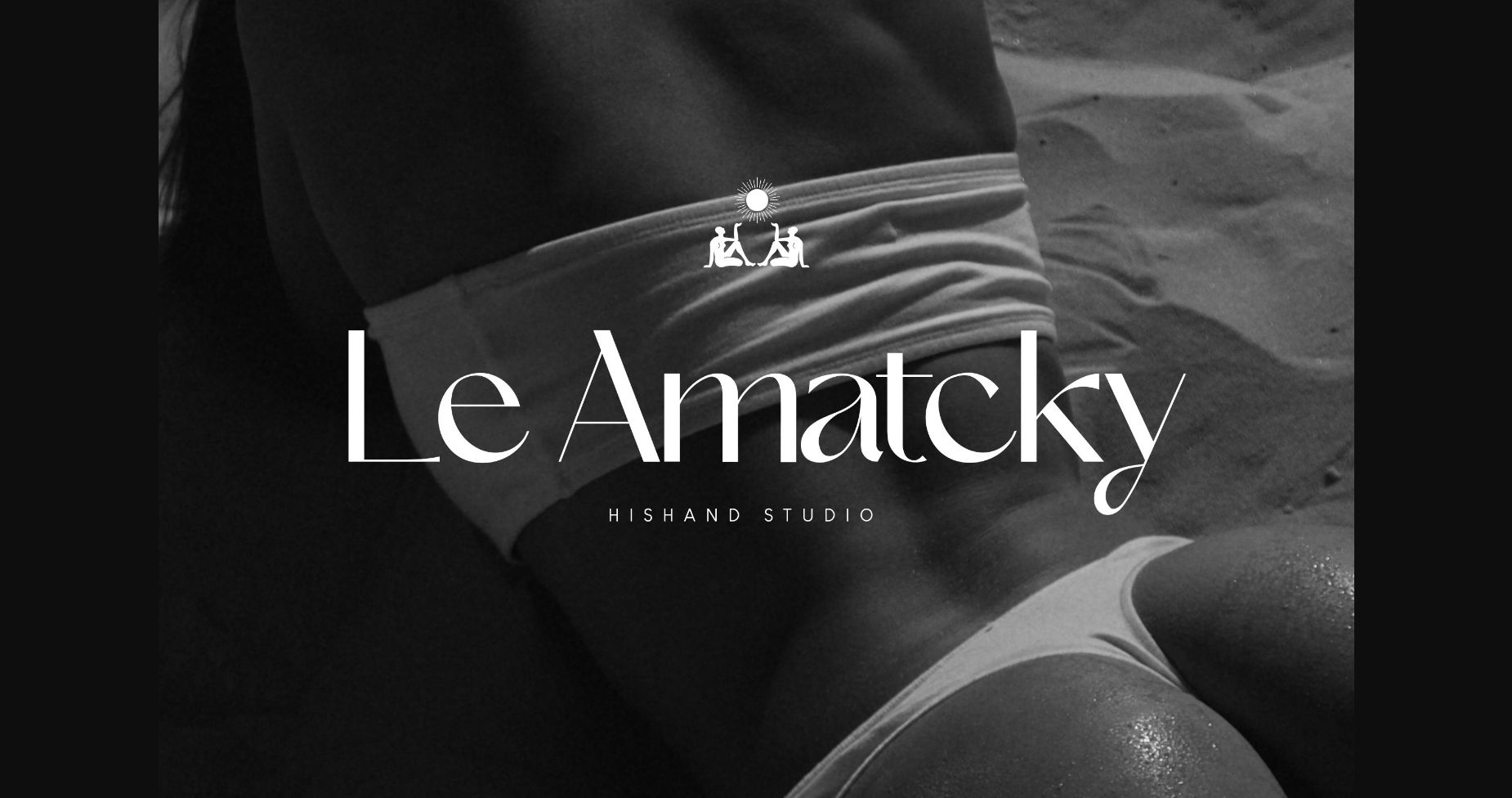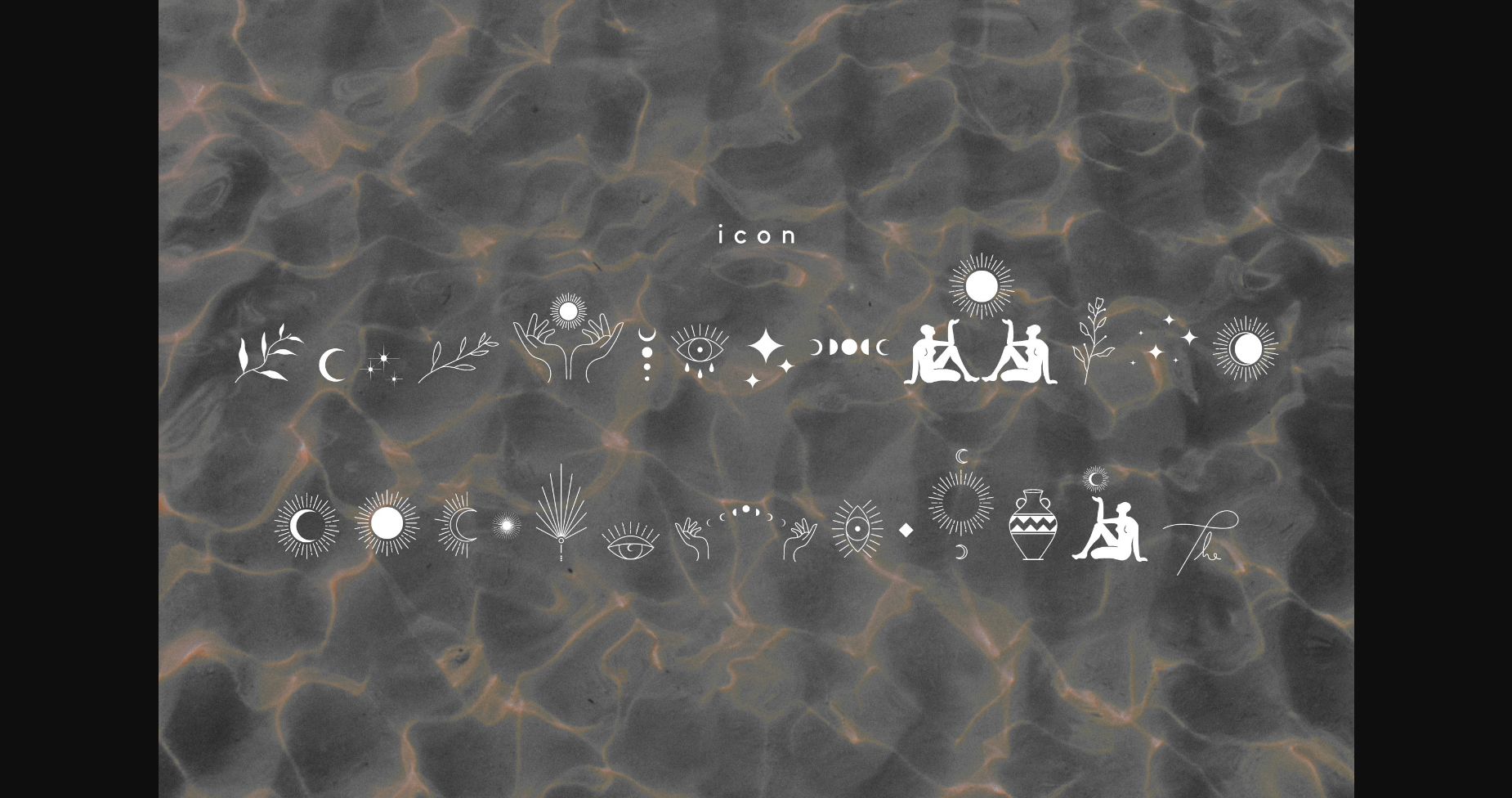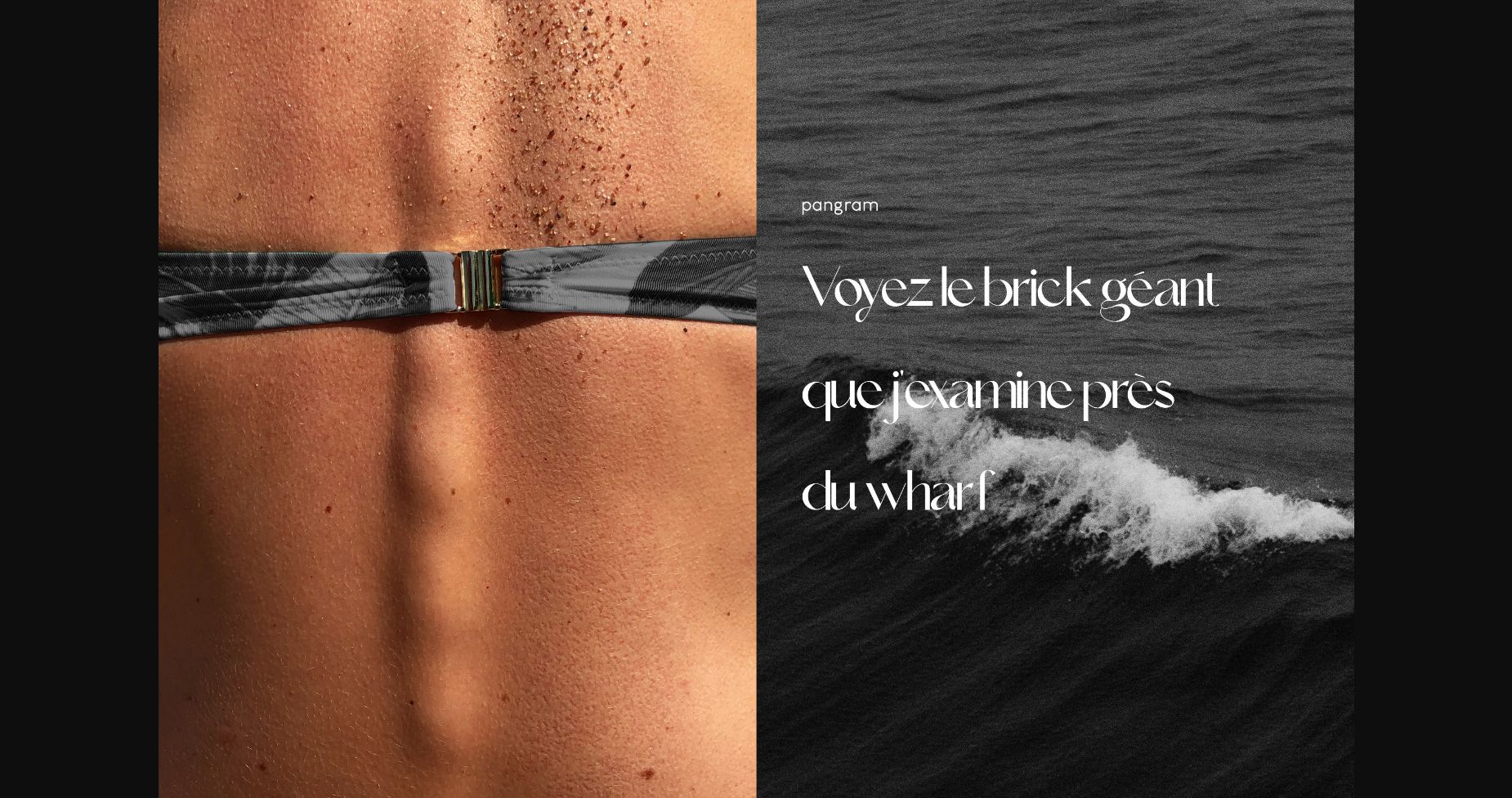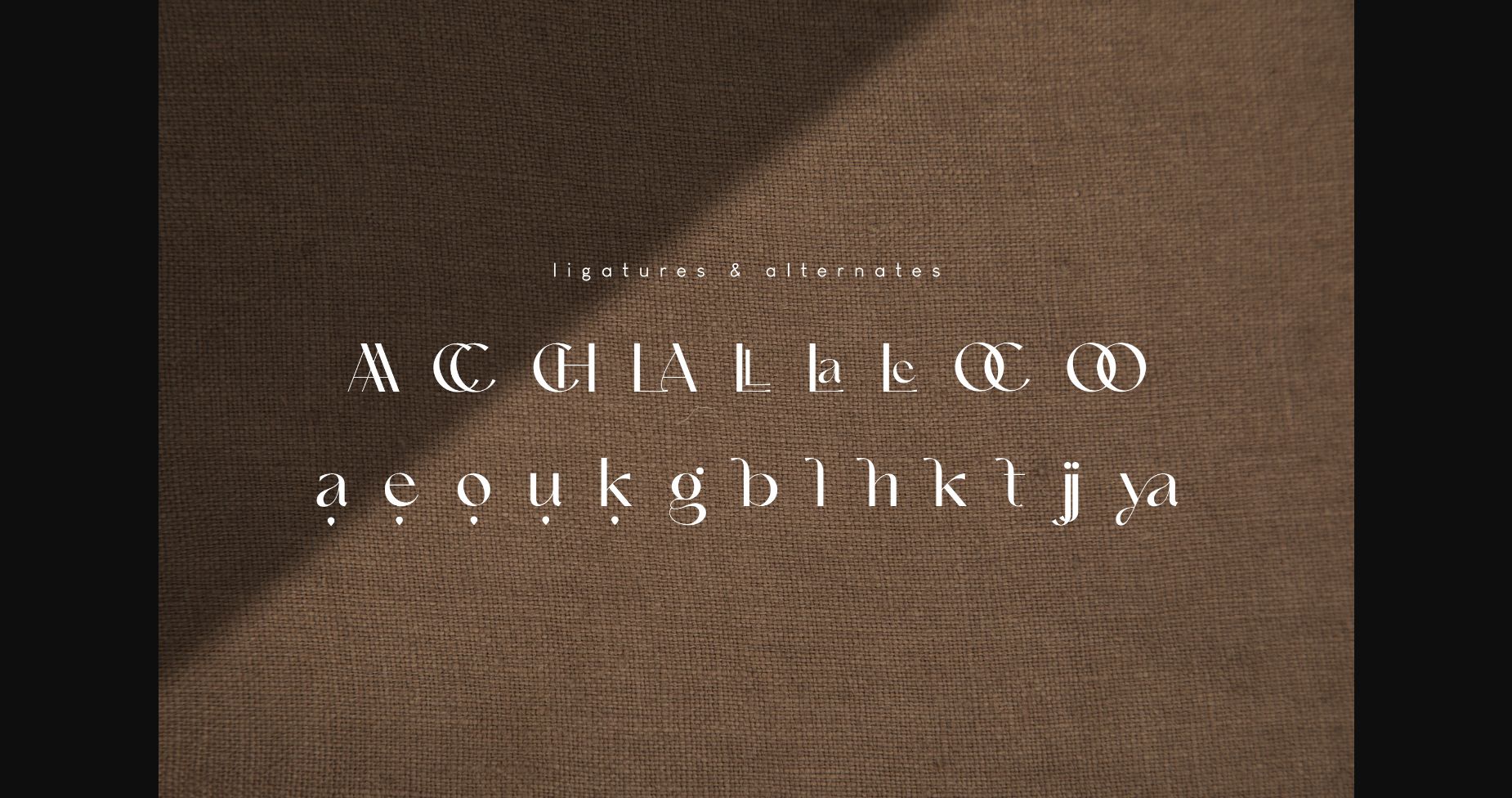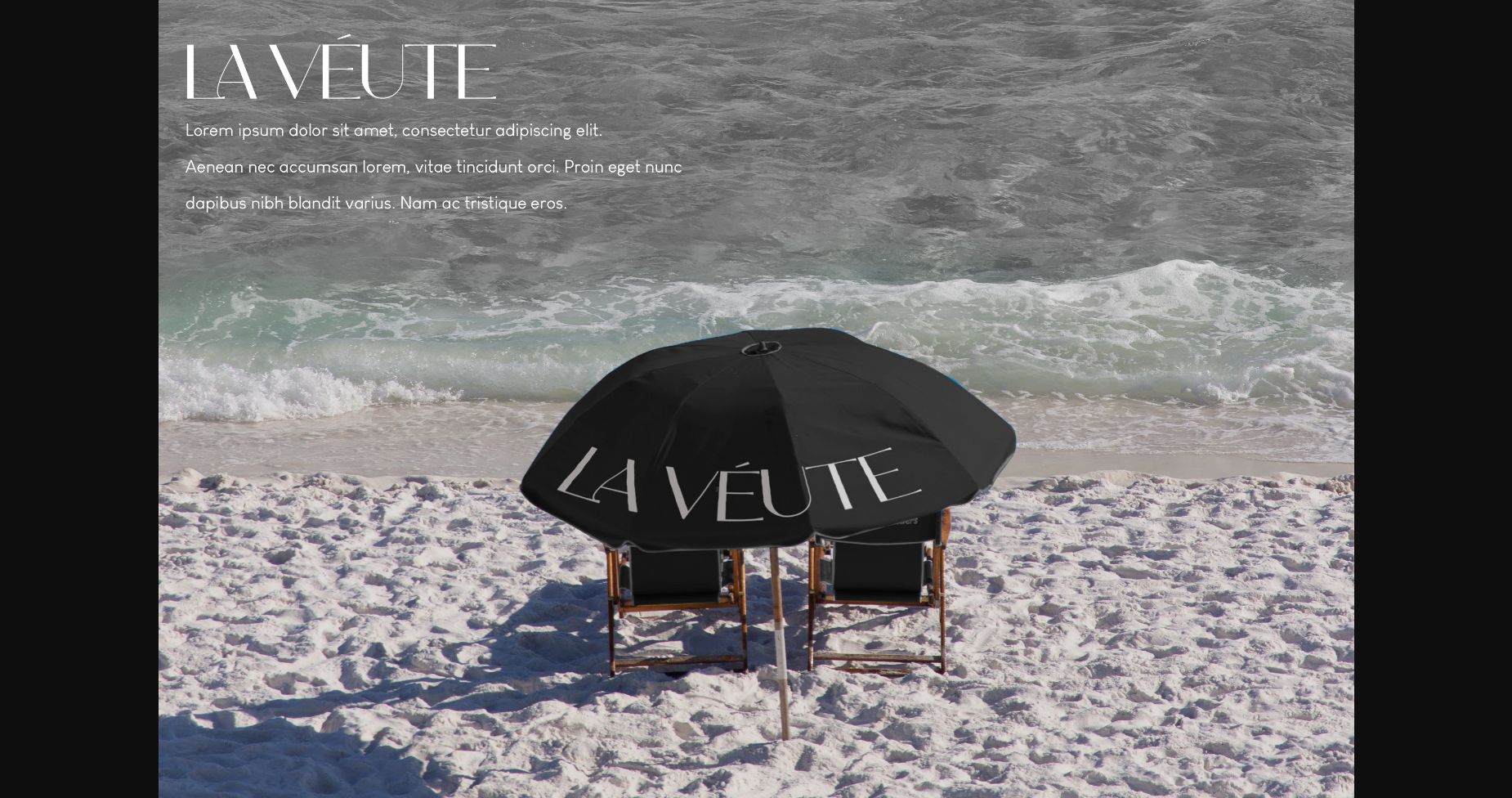
About Le Amatcky Font
Le Amatcky is an elegant sans serif font with interesting icon elements. Fall in love with its incredibly versatile style and use it to create spectacular designs!